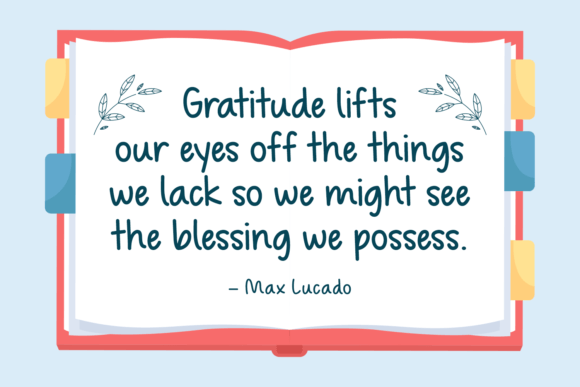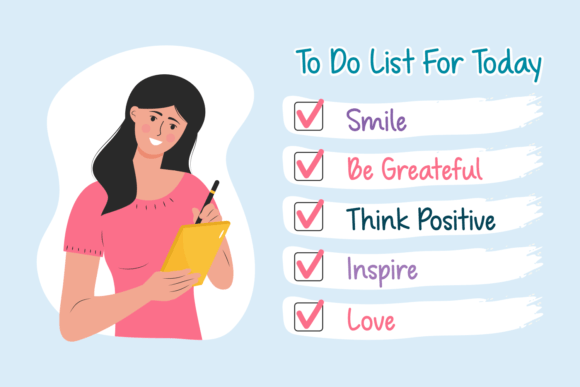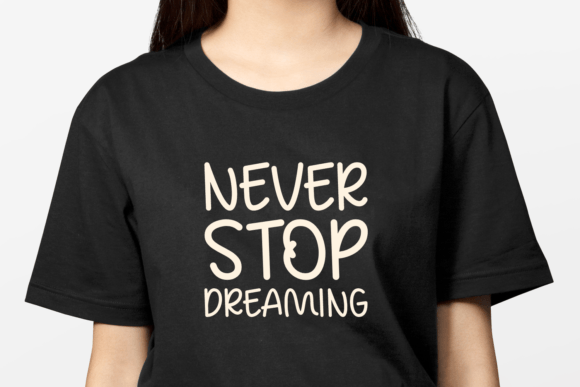
Introduction to Maybe Blessed Font
Have you ever stared at a blank canvas, feeling the pressure to create something truly special for a client or your own personal project? The blank page can be daunting, but it’s also an opportunity to get creative and bring your vision to life. For designers, the right font can make all the difference between a project that’s just okay and one that truly stands out.
That’s where the Maybe Blessed Font comes in – a beautiful, thin, and playful handwritten font that’s perfect for chic branding, high-end packaging, or elegant personal projects. With its high-quality design and transparent background, this font is a valuable resource for designers who want to add a touch of sophistication and whimsy to their work.
Key Features of Maybe Blessed Font
- High-quality design resource with a unique and creative style, perfect for various creative projects.
- Features a transparent background, making it ideal for use on various backgrounds and designs.
- Comes in a single font file with multiple styles and weights, including regular, bold, italic, and bold italic.
- Supports various font sizes and resolutions, making it suitable for use in both web and print design projects.
- Designed to be highly legible and readable, even at small font sizes, making it an excellent choice for body text and headings.
Honest Review: Maybe Blessed Font
I recently stumbled upon the Maybe Blessed Font, a stunning free download that’s been making waves in the design community. As a designer, I was excited to dive in and see what this font had to offer.
What works well: ✨ I was blown away by the high quality of the font. The lines are crisp, the spacing is perfect, and the overall aesthetic is sleek and modern. I love that the designer has included a transparent background, making it super easy to use in a variety of creative projects.
What I’d like to see improved: ⚠️ While the font itself is amazing, I did notice that it’s only available in a few weights. This might limit its use in certain design projects where a wider range of weights would be beneficial.
Other than that, I’m thoroughly impressed with the Maybe Blessed Font. It’s a fantastic design resource that’s perfect for anyone looking to add a touch of elegance to their creative project. The free download makes it accessible to designers of all levels, and the high quality ensures that it will look great in any context.
- Perfect for modern creative projects
- High quality font with crisp lines and perfect spacing
- Transparent background for easy use
- Only a few weights available
Maybe Blessed Font
The Maybe Blessed Font is a high-quality design resource that can be used in a variety of creative projects. Some common use cases include:
- Presentations
- Documents
- Graphics